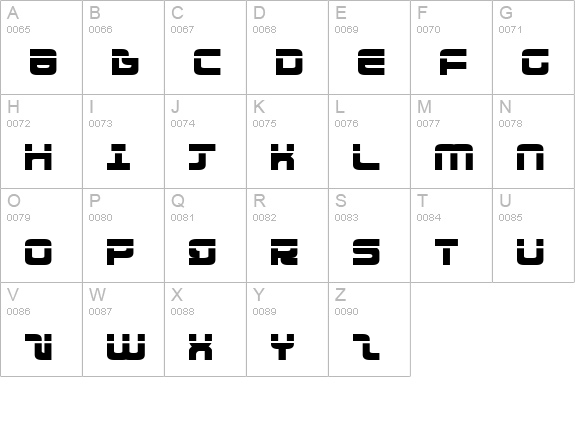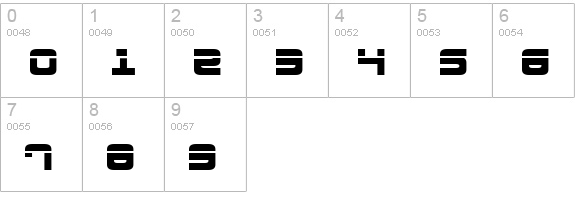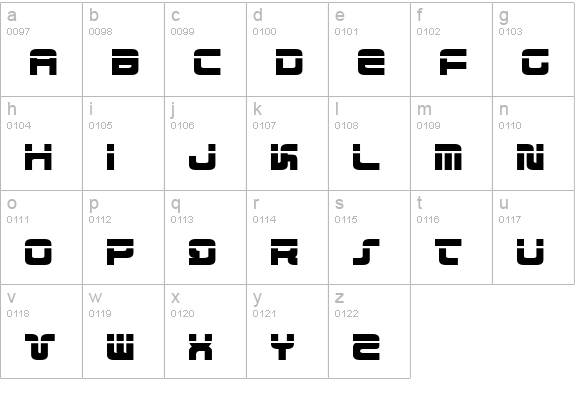
Direktor Laser font is a bold and futuristic typeface that exudes a sense of power and sophistication. With its sharp lines and geometric shapes, this font is perfect for making a bold statement in any design project. Whether you're creating posters, logos, or branding materials, Direktor Laser font will give your work a modern edge. What's even better is that Direktor Laser font is available for free download at FontsMarket.com. This means you can easily access this eye-catching font to elevate your designs without any cost. Don't miss out on the opportunity to add Direktor Laser font to your font collection and take your projects to the next level.